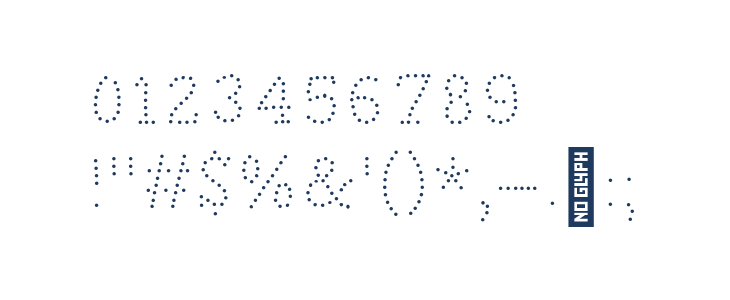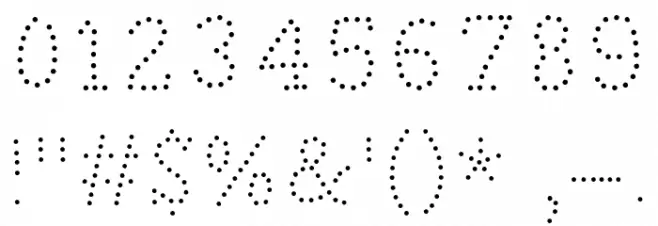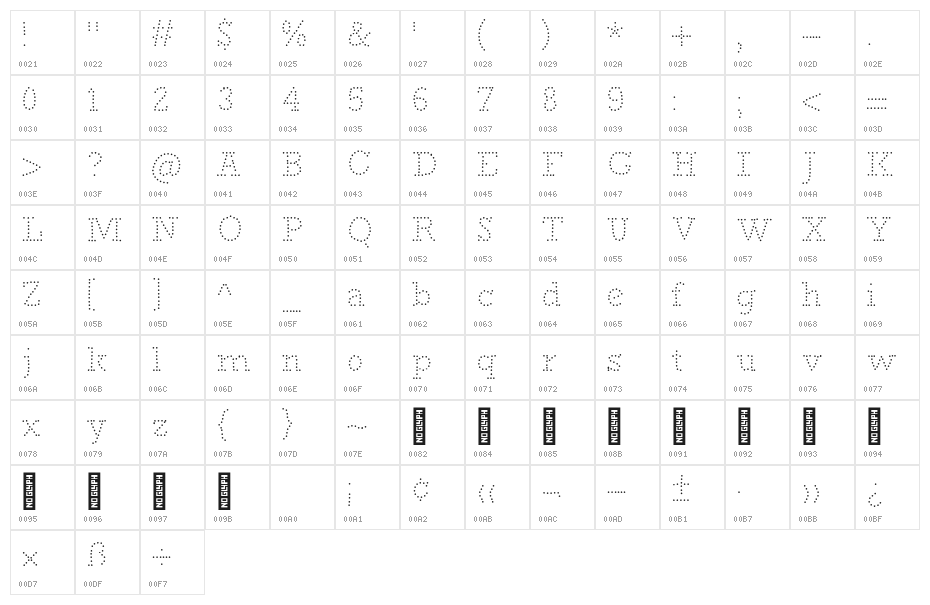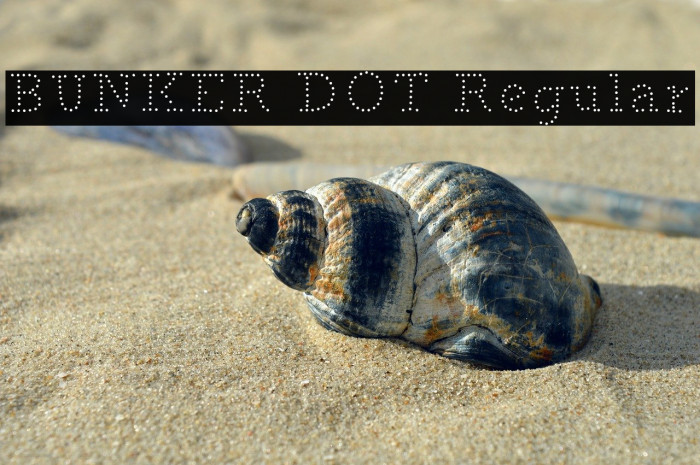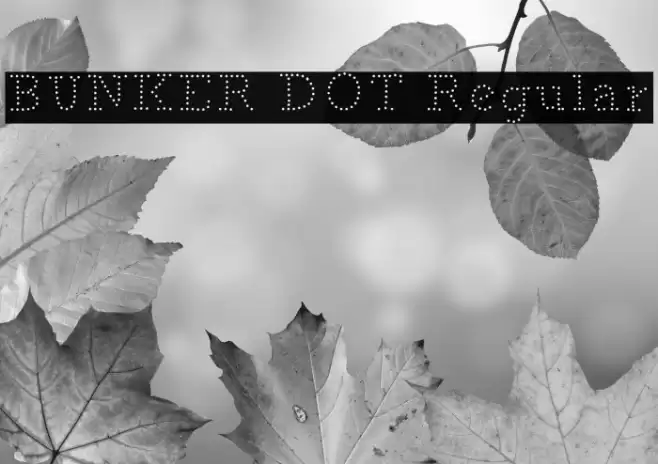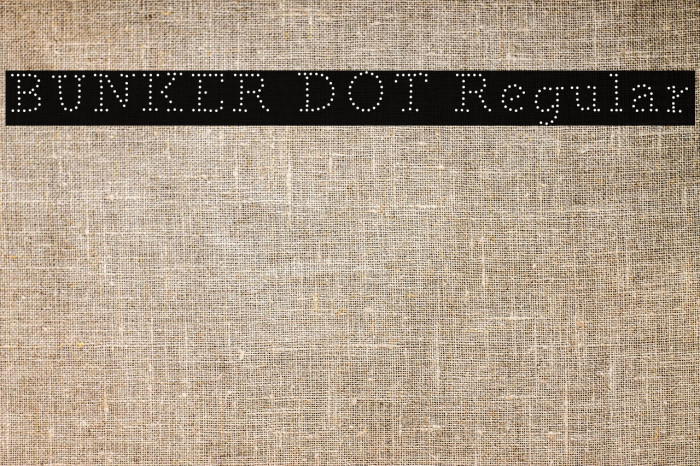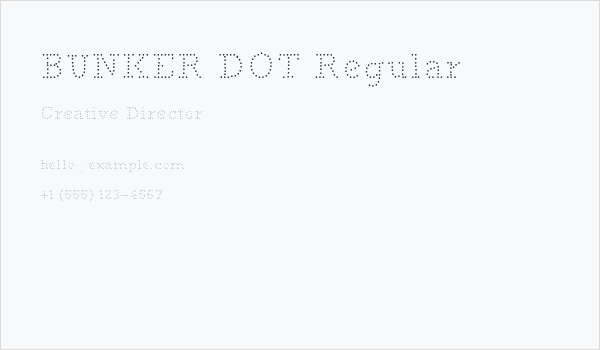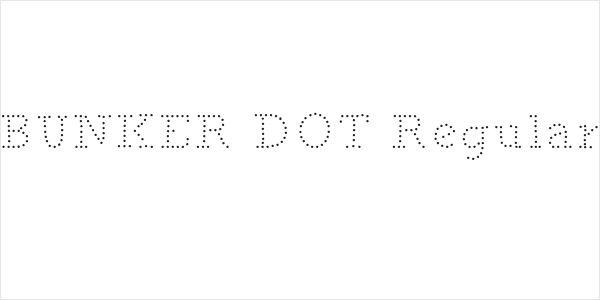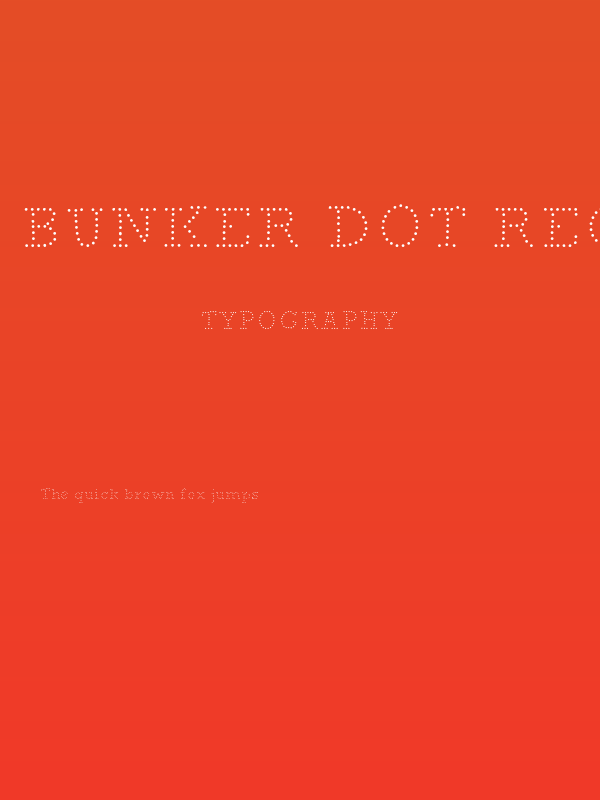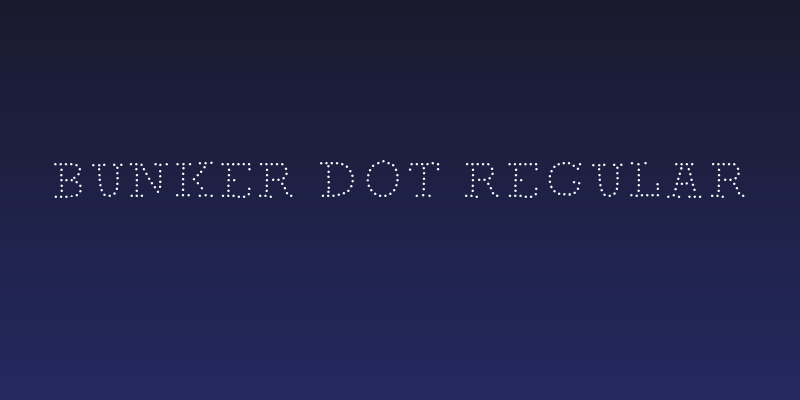
BUNKER DOT Regular Font
BUNKER DOT Regular Description
This font features a unique dotted design where each character is composed of evenly spaced dots, creating a modern and playful aesthetic. The uppercase and lowercase letters maintain a consistent style, with clean lines formed by the dots. Numbers and special characters follow the same dotted pattern, ensuring uniformity across all glyphs. The font's structure is clear and legible, making it suitable for creative and decorative purposes. Its distinct appearance is ideal for projects that require a touch of whimsy or a modern twist.
| Use Case | Headlines, Logos, Decorative text |
| Proposed Projects | Ideal for creative projects such as posters, invitations, and branding materials that require a playful and modern touch. |